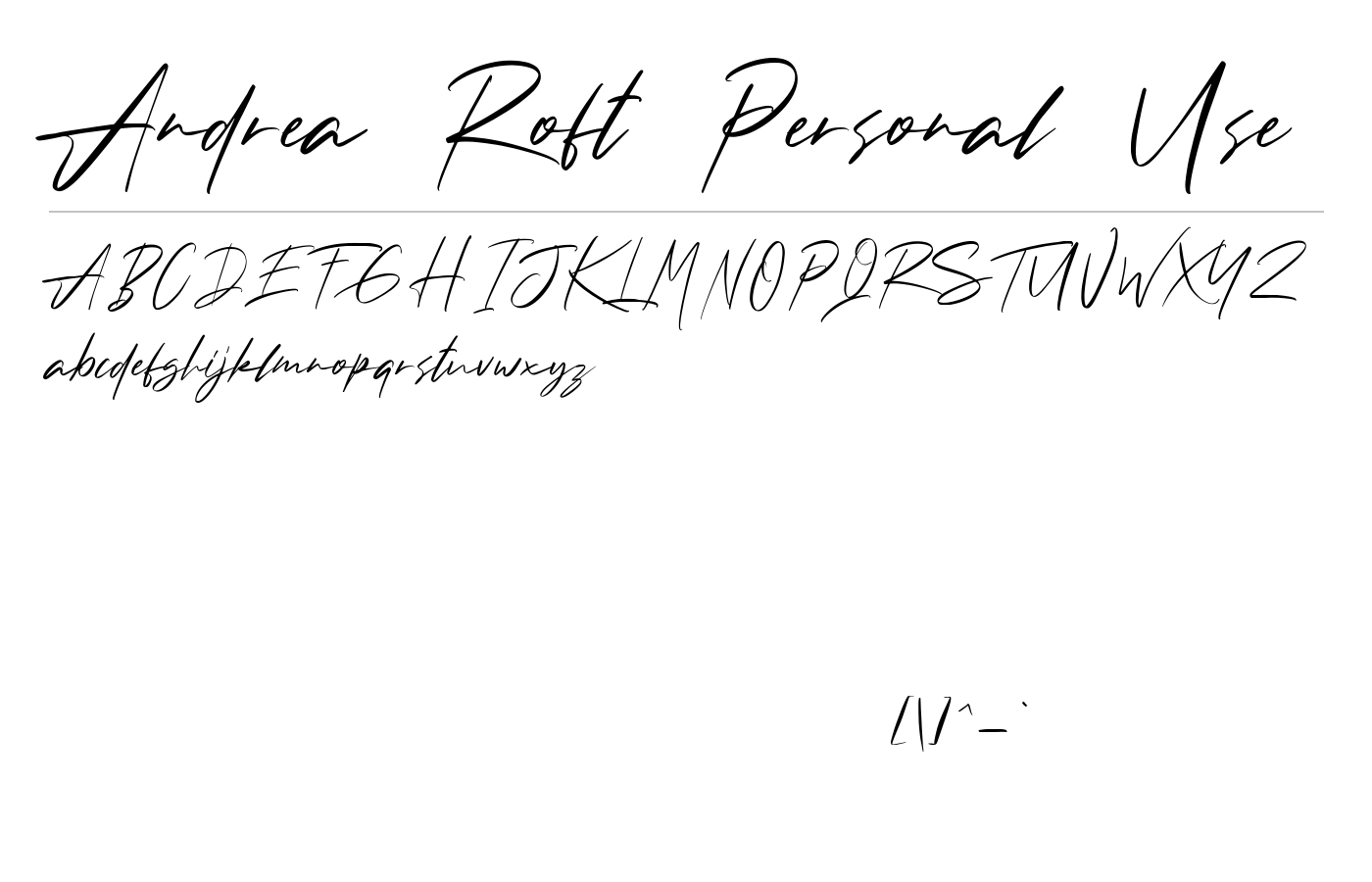
Andrea Roft Personal Use is an elegant, modern script font featuring delicate, flowing strokes that mimic natural handwriting with a slightly casual, artistic flair. Its thin weight and airy spacing give it a light, sophisticated feel perfect for adding a personal, stylish touch to branding, invitations, and social media graphics. This font works beautifully in creative projects where a graceful and approachable handwritten look is desired.
Andrea Roft Personal Use Font
About Andrea Roft Personal Use Font